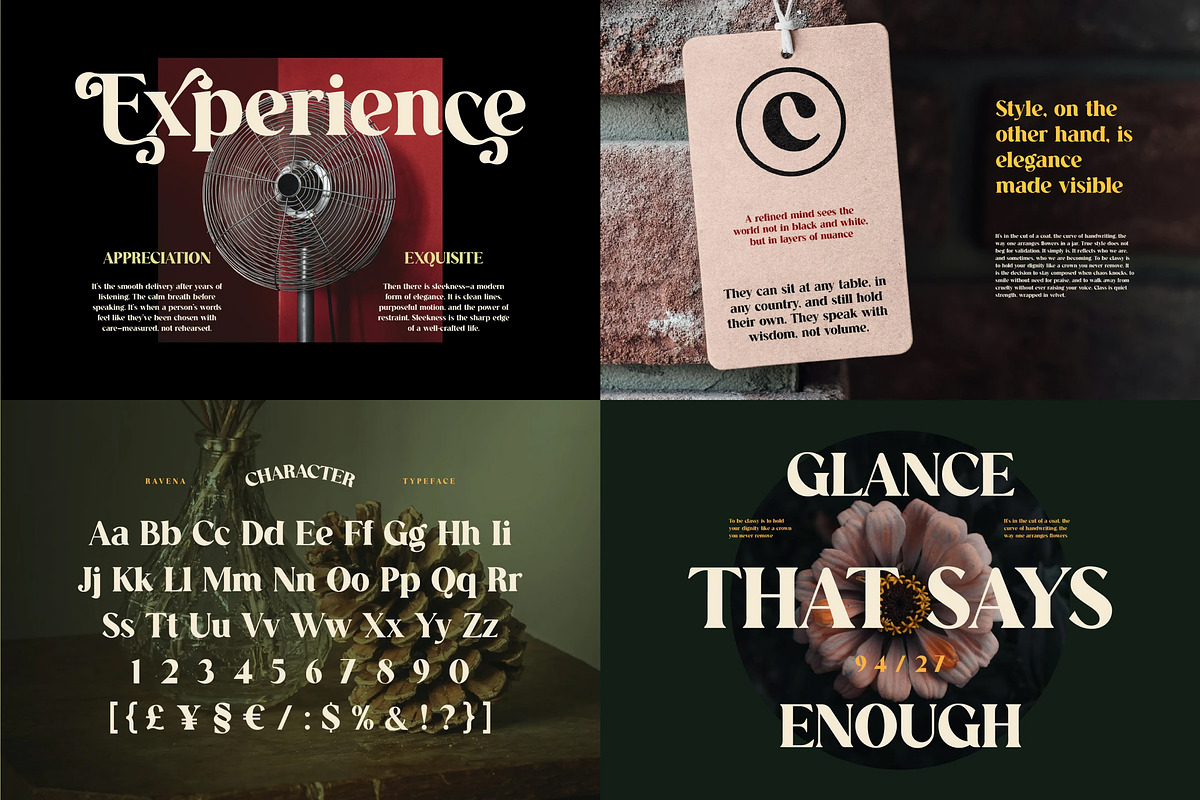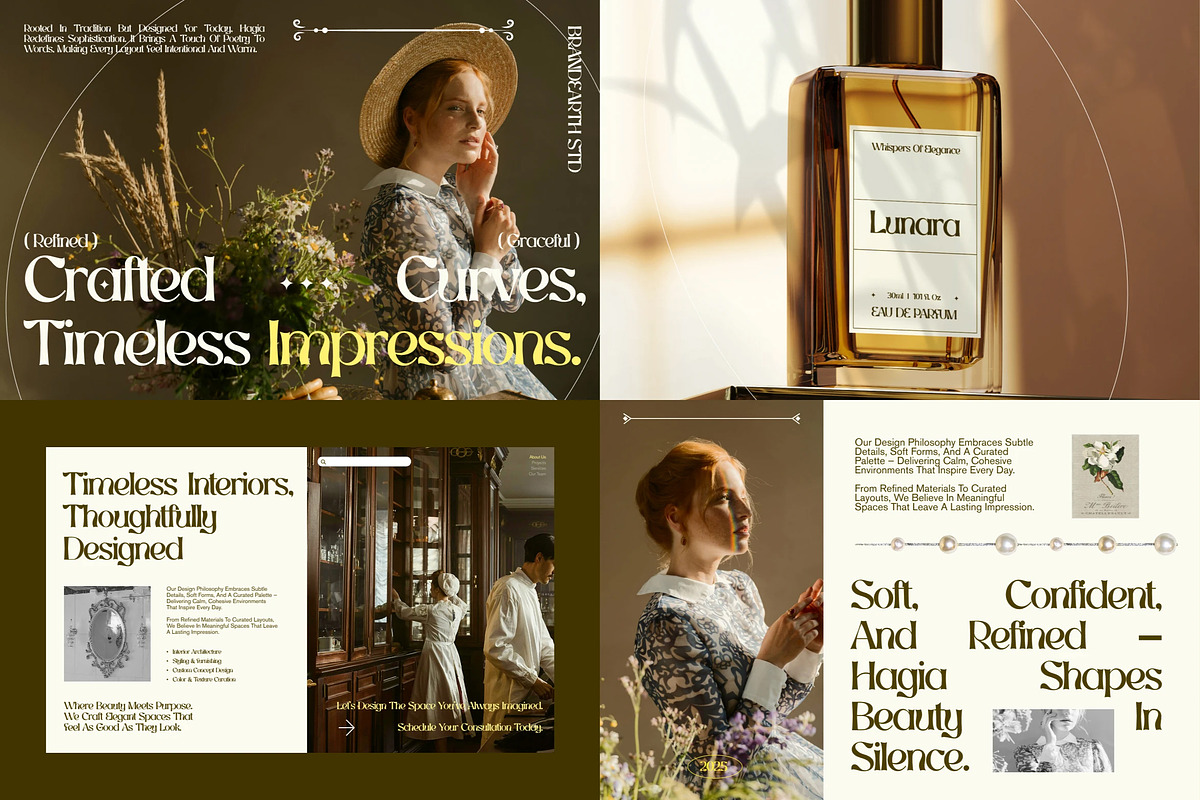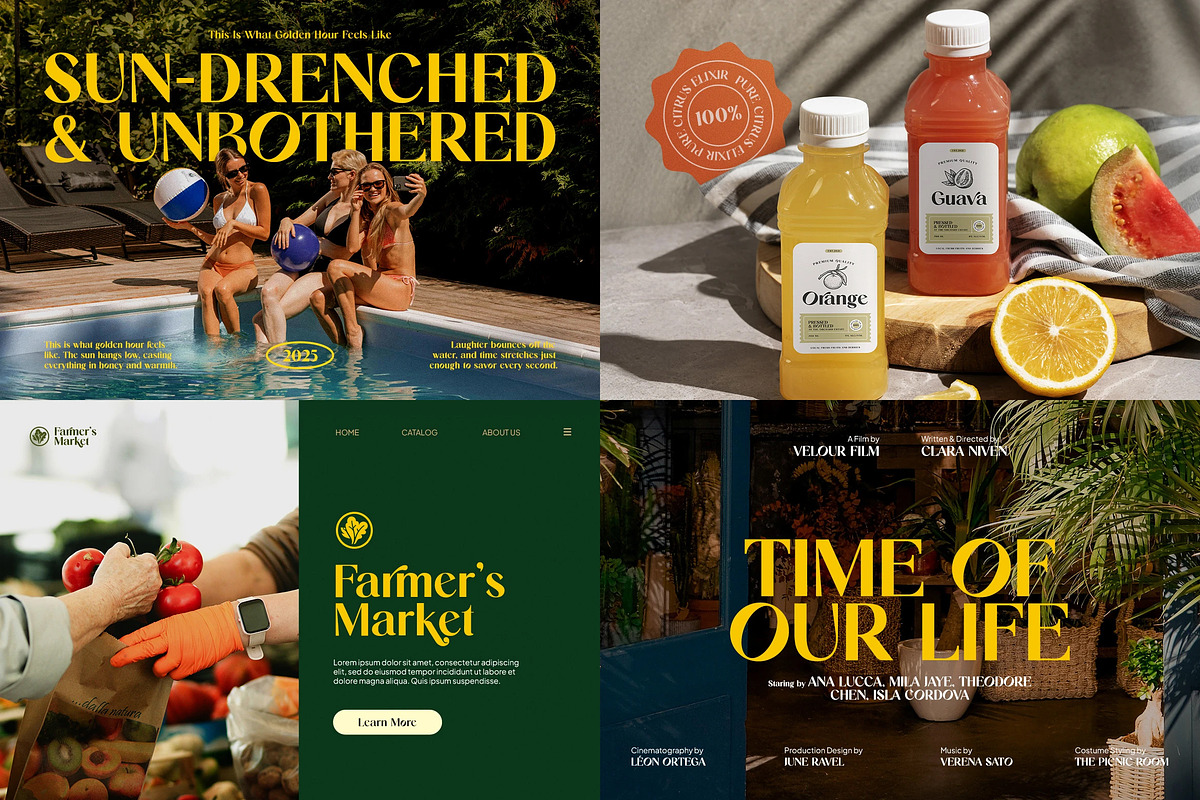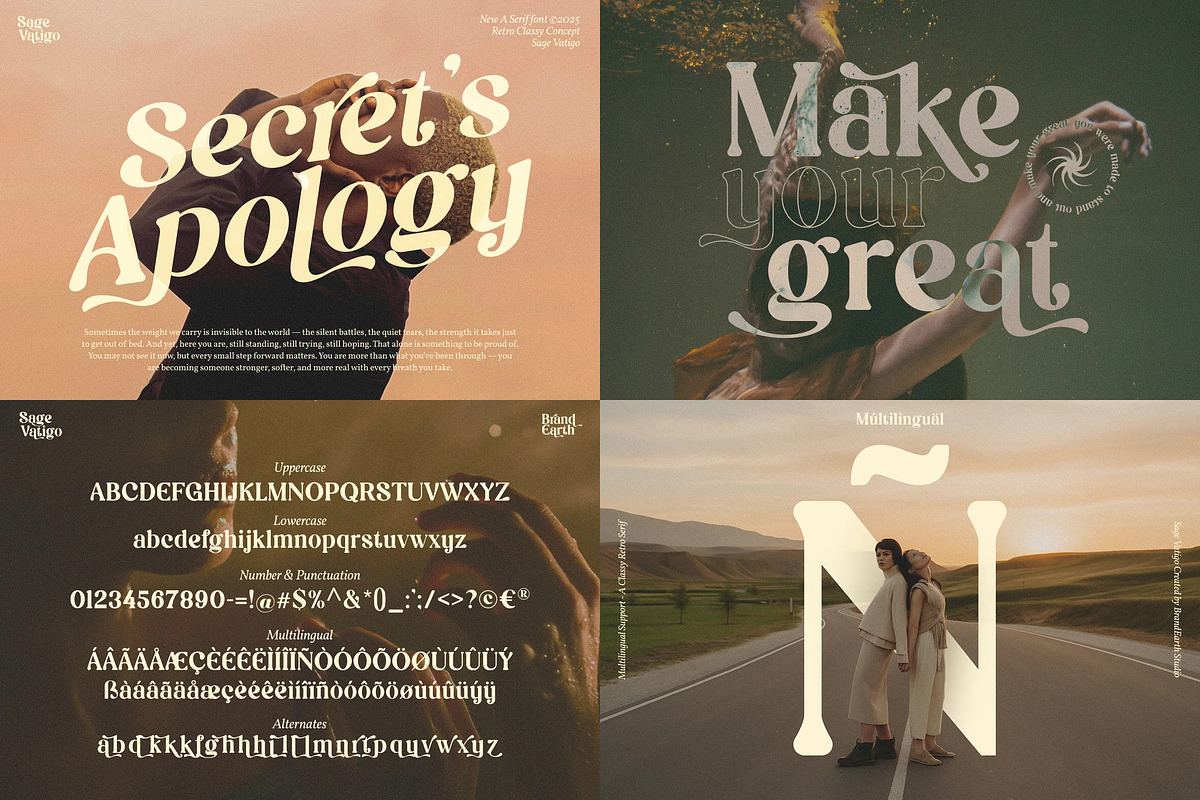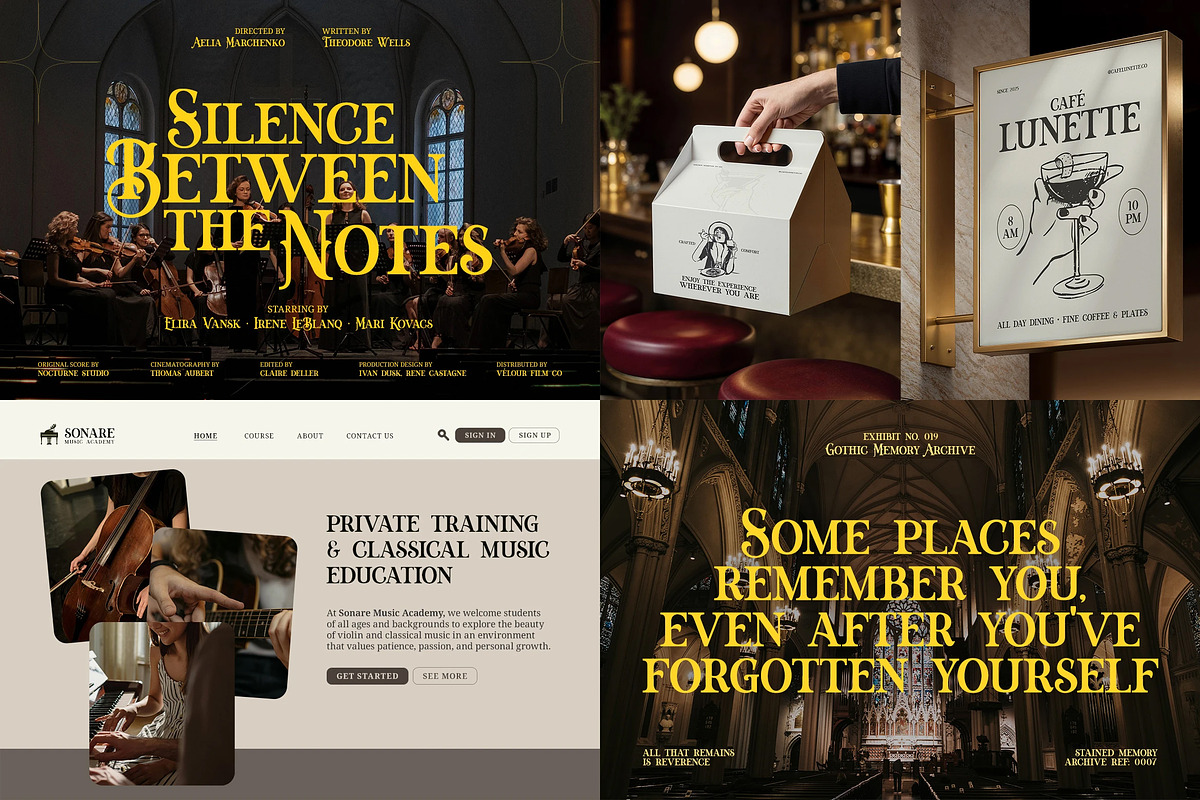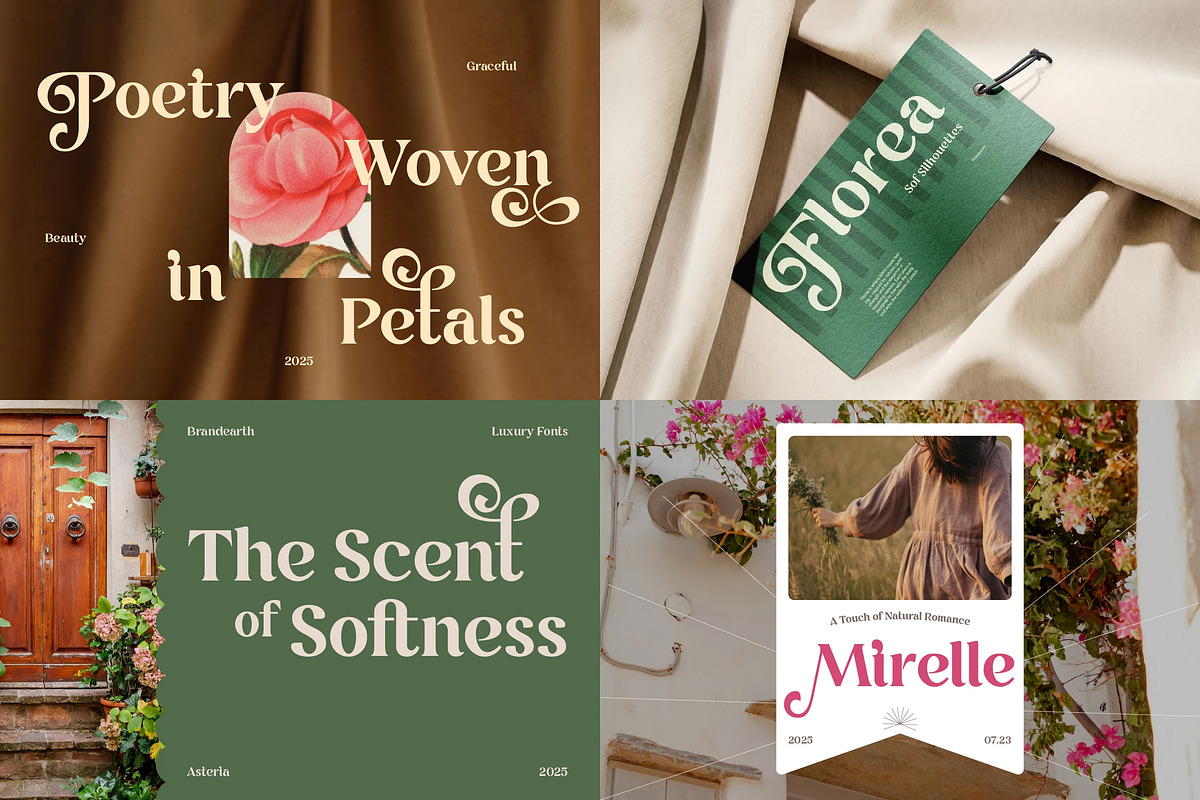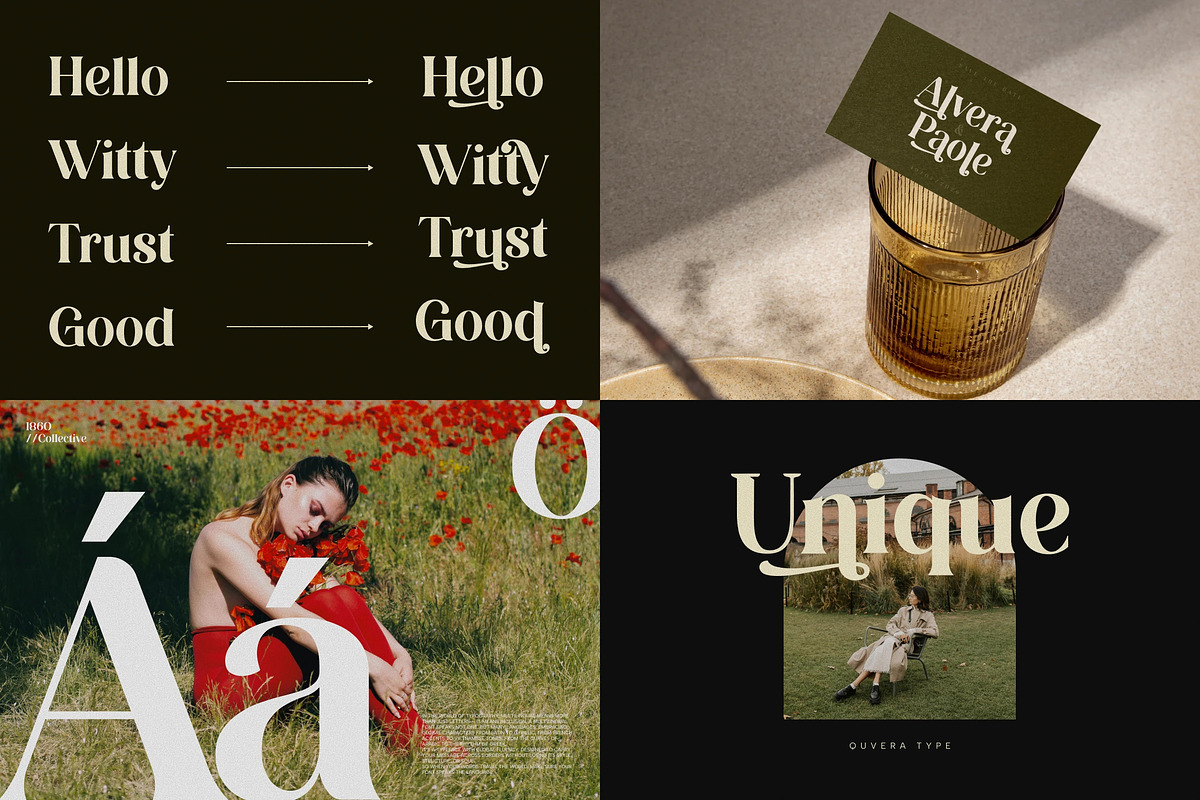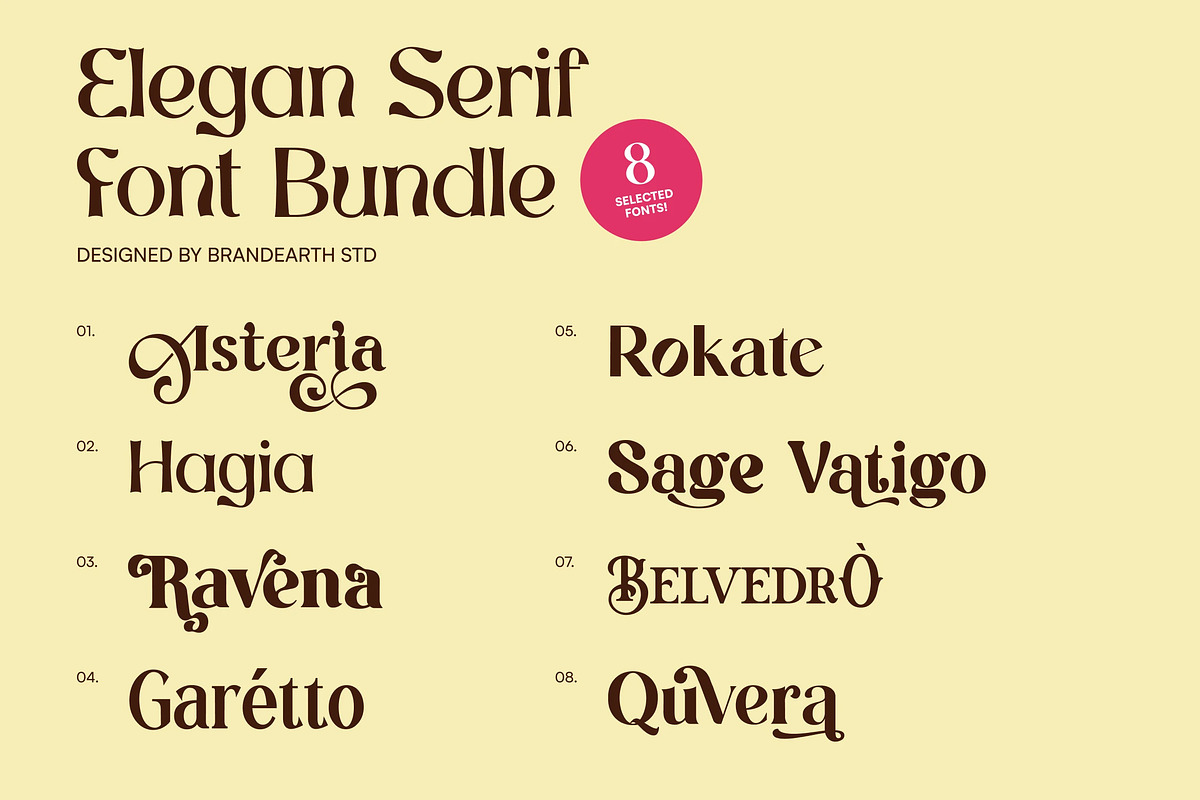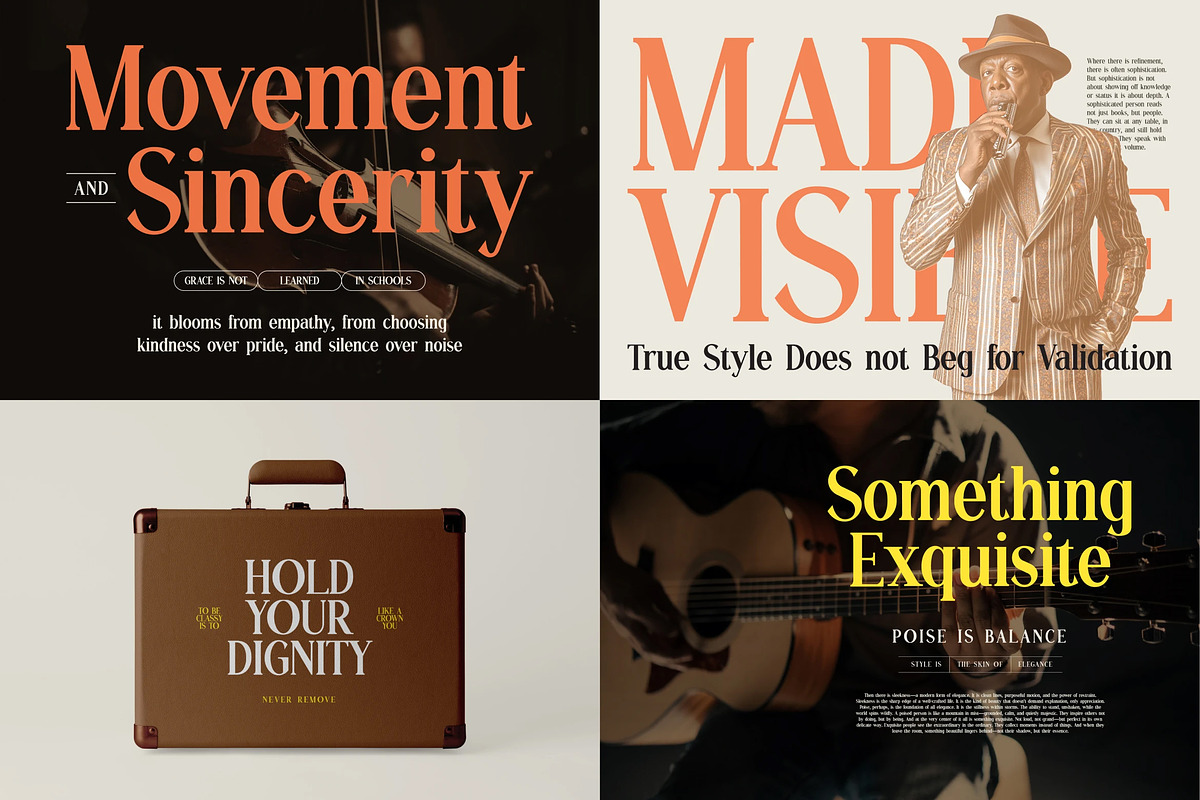
Elegant Serif – 8 Font Bundle
Elegant Serif is a curated collection of eight sophisticated serif typefaces, each bringing its own distinct personality while sharing a common thread of vintage charm and timeless refinement. From the ornamental romance of Astaria to the classy rustic warmth of Rokate, the retro drama of Sage Vatigo, the fashion-forward grace of Garétto, the classical artistry of Belvedrò, the commanding elegance of Ravena, the blooming decorative flair of Quvera, and the quiet sophistication of Hagia—this bundle captures a versatile range of moods spanning romantic, editorial, vintage, and luxurious. Together, these eight fonts form a complete toolkit for designers who want variety without sacrificing quality.
The letterforms across this collection range from bold ornamental swashes and high-contrast strokes to soft graceful curves and delicate ligatures. Each typeface carries its own rhythm—some dramatic and vintage-inspired, others quiet and refined—giving you the flexibility to match the perfect font to your brand's voice. Expressive ligatures, decorative alternates, and rich detailing are woven throughout, ensuring every word feels intentional and beautifully composed.
With its blend of classic serif tradition and modern editorial styling, Elegant Serif bridges the gap between timeless typography and contemporary luxury design. It provides the versatility to move seamlessly between wedding stationery, fashion editorials, and heartfelt boutique branding—making it ideal for logo design, magazine layouts, perfume and beauty packaging, and premium brand identities.
Fonts Included in This Bundle
Astaria – Vintage luxury serif with ornamental swashes and romantic flair.
Rokate – Classy vintage serif with rustic warmth and organic charm.
Hagia – Refined serif with soft contrast and quiet editorial sophistication.
Sage Vatigo – Retro serif with bold 70s-inspired drama and high contrast.
Ravena – Elegant serif with dramatic curls and commanding presence.
Belvedrò – Classical serif with intricate curves and vintage artistry.
Garétto – Vintage-refined serif with expressive curves and strong contrast.
Quvera – Decorative display serif with ornate swashes and blooming character.
Ligatures & Alternates